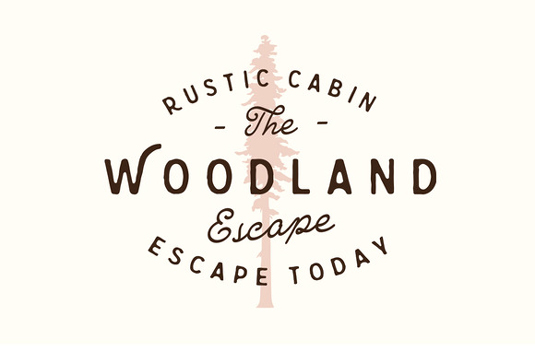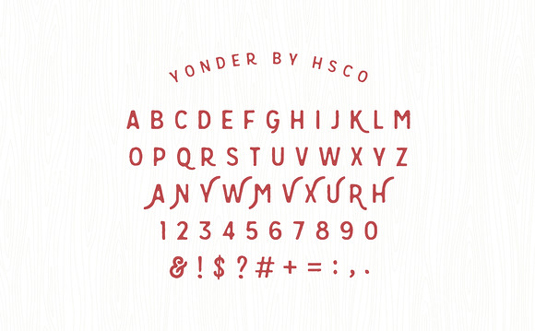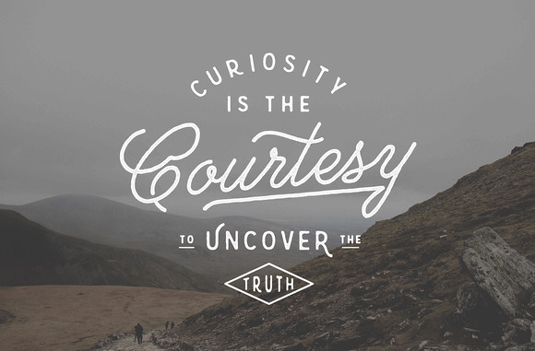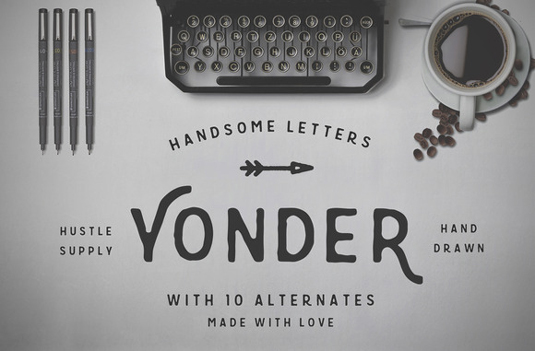
Font of the day: Yonder
Every day we showcase the best fonts on the web. Today it's Yonder by Jeremy Vessey.
Yonder by Jeremy Vessey
Yonder is a new, hand-drawn typeface, designed by Jeremy Vessey. "I created this font in response to the huge demand I see for typefaces of this style," he comments. "It couples very well with script fonts and gives each piece a sense of character. Look no further for a playful typeface that will give your design the overall aesthetic that is so popular today."